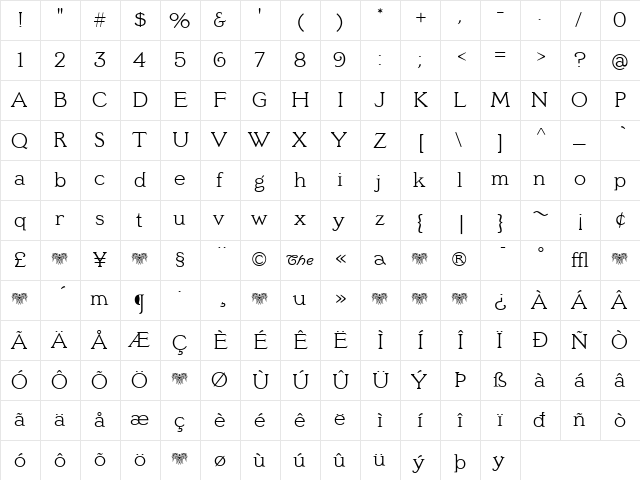
MeyerTwo Regular
Design Context for MeyerTwo Typeface
MeyerTwo offers clean, dependable letterforms without strong stylistic allegiance, making it a practical choice for designers who need flexibility.